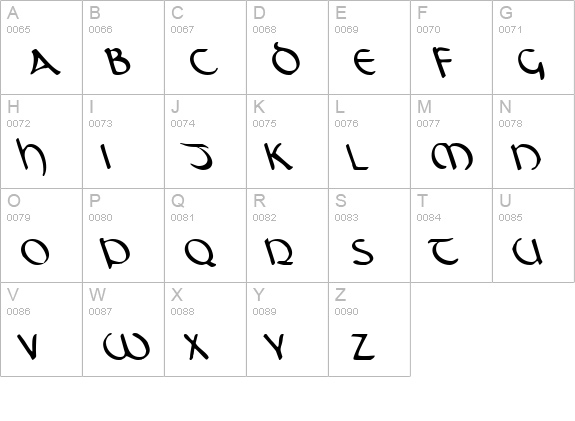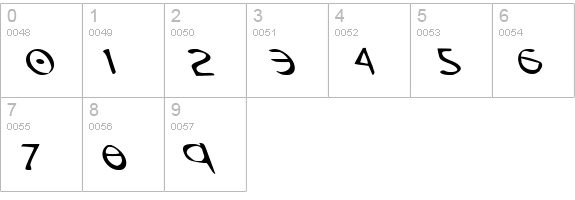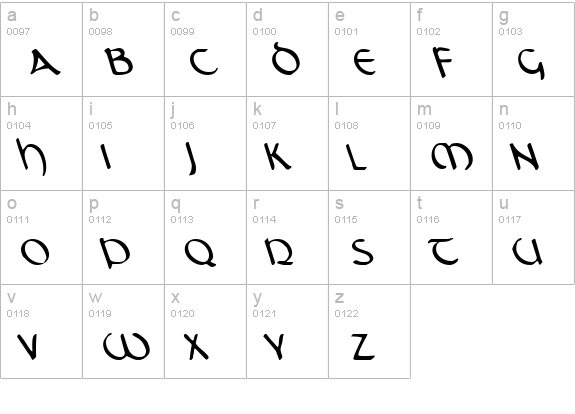
Tristram Leftalic font exudes a sense of elegance and sophistication with its stylish and flowing letterforms. This font's slanted design adds a touch of dynamism to any project, making it perfect for adding a touch of flair to branding materials, invitations, or editorial designs. The subtle curves and unique details of Tristram Leftalic create a visually appealing look that is both modern and classic. The best part? Tristram Leftalic font is available for free download at FontsMarket.com, giving you the opportunity to elevate your designs without breaking the bank. Embrace the beauty and versatility of this stunning font and watch your projects come to life with a touch of refined charm.